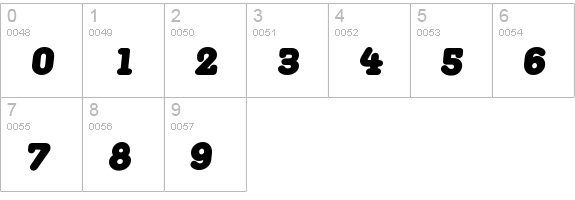
Medfly Black Font Details
Medfly Black is a maximum-weight, dramatic variant in the Medfly typeface family \xE2\x80\x94 well suited to maximum-impact headlines, posters, and packaging.
Medfly Black font is a sleek and modern typeface that exudes sophistication and elegance. With its bold and eye-catching design, this font is perfect for creating impactful and memorable designs. The clean lines and sharp edges of Medfly Black make it ideal for a wide range of design projects, from logos and branding to posters and headlines. What's even better is that Medfly Black font is available for free download at FontsMarket.com. This means that you can easily access this stylish and versatile font without any cost, making it a valuable addition to your font collection. Whether you're a professional designer or just looking to add a touch of style to your projects, Medfly Black font is sure to impress with its bold and contemporary look.